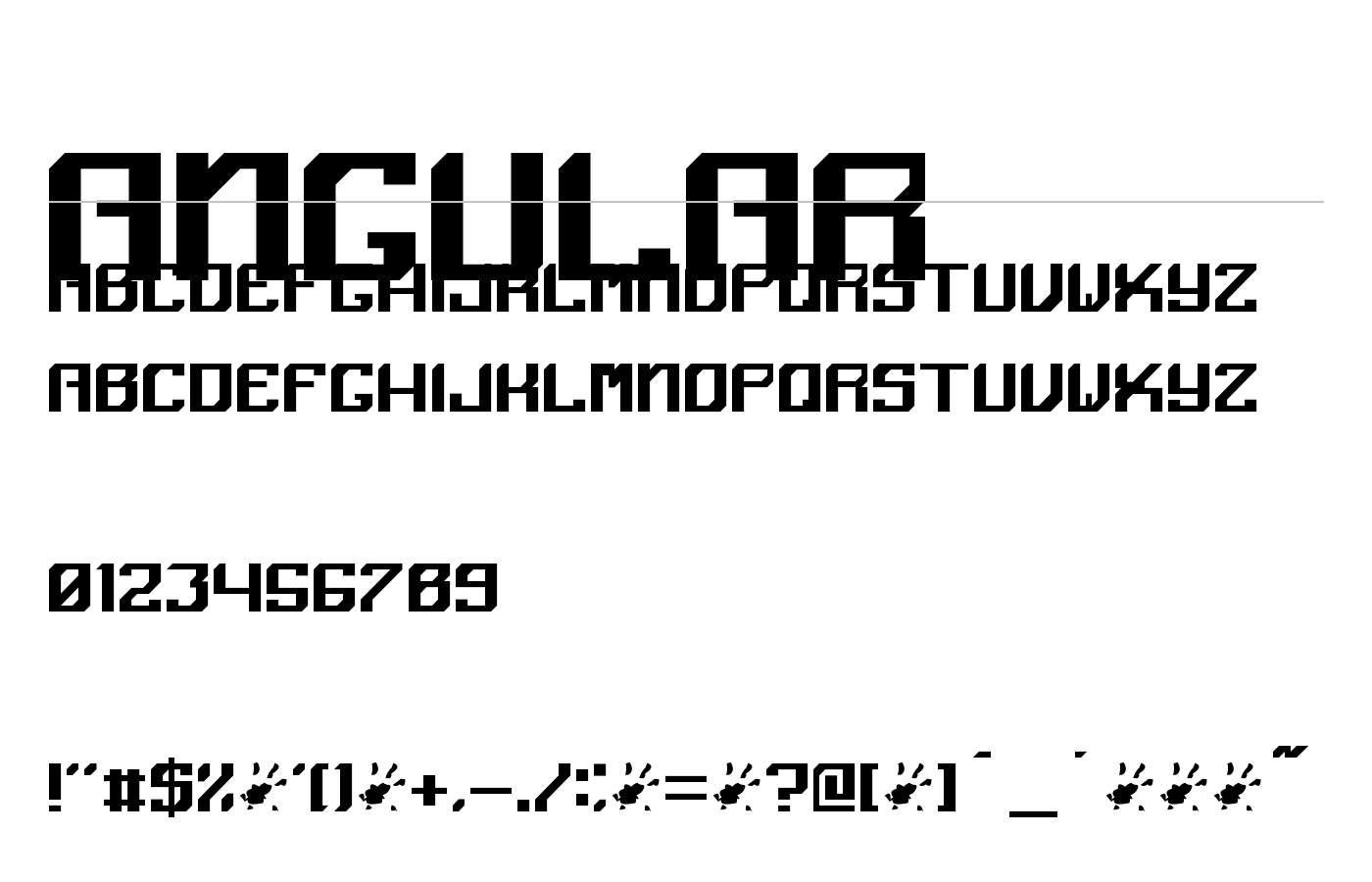
Angular Font is a bold, geometric sans serif typeface characterized by sharp, angular edges and a condensed structure. Its high-contrast strokes and blocky letterforms give it a modern, industrial feel, making it ideal for striking headlines, tech branding, and futuristic design projects where a strong, edgy personality is needed. This font works best in display uses where its distinctive shapes can create a memorable and impactful visual impression.
Angular Font
About Angular Font
| Font family | Angular Font |